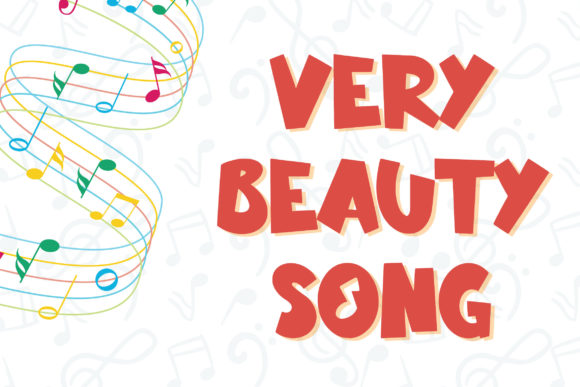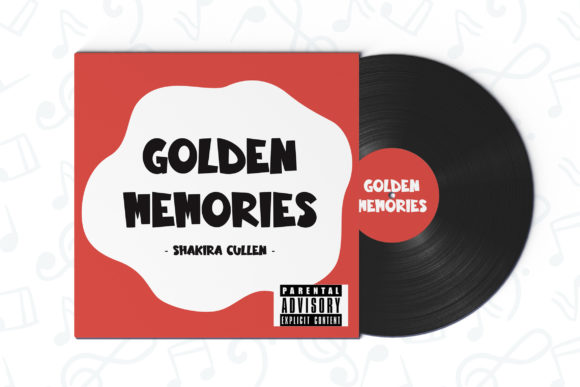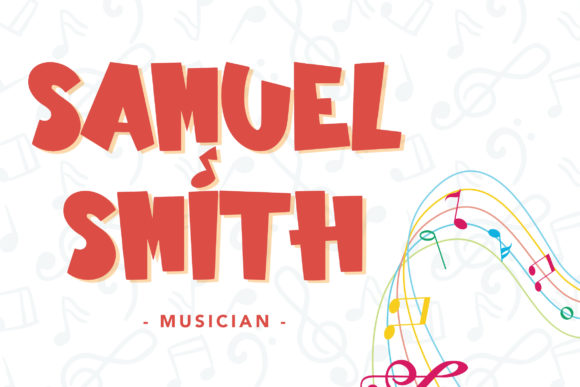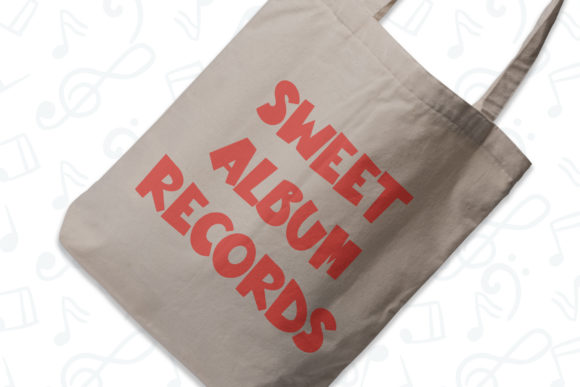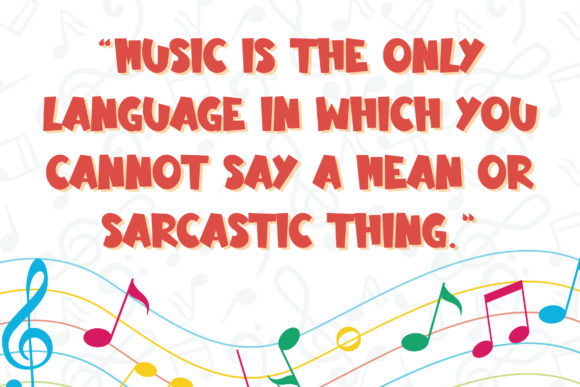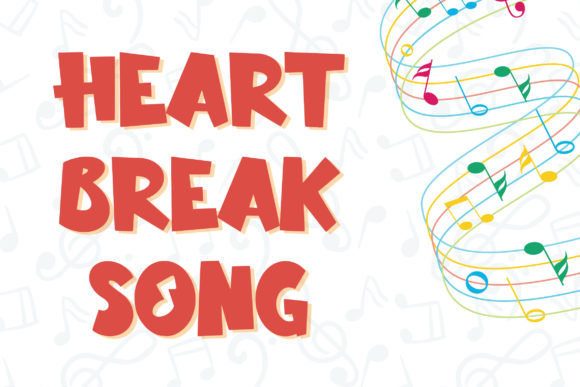
Introduction to On Melody Font
There’s something magical about stumbling upon the perfect font for a creative project. It’s like discovering a hidden treasure that elevates your design from ordinary to extraordinary. For designers, finding that special font can be a game-changer, making all the difference in bringing a concept to life. And that’s exactly what happens when you come across the On Melody Font – a delightful, handwritten font that’s perfect for adding a personal touch to your work.
With its unique, hand-crafted characters and PUA encoding, the On Melody Font offers endless possibilities for creative expression. Whether you’re designing a logo, creating a wedding invitation, or developing a product label, this font is sure to bring a touch of warmth and personality to your project.
Key Features of On Melody Font
- High-quality, professional font perfect for creative projects, with a transparent background that allows for seamless integration with any design.
- Unique, elegant design that adds a touch of sophistication to any creative project, making it a valuable design resource.
- Easy to use, with a clear and intuitive design that makes it perfect for designers of all skill levels.
Honest Review: On Melody Font
As a designer, I’m always on the lookout for high-quality design resources to elevate my creative projects. Recently, I had the chance to try out the On Melody Font, and I must say it’s been a game-changer.
Here are some things that work well: ✨
- Unique and elegant design style that’s perfect for creating a sophisticated look
- High-quality font that’s clear and legible, even at smaller sizes
- Works well with a transparent background, allowing for a seamless integration with other design elements
However, there are a few limitations: ⚠️
- Limited character set, which may be a concern for designers who need to use the font for extended periods
- No bold or italic weights available, which can limit the font’s versatility
Overall, I’m really impressed with the On Melody Font. Its unique design style and high-quality feel make it a great addition to any designer’s toolkit. With a few minor limitations, I’d highly recommend this font to anyone looking to elevate their creative projects.
Tips for Getting the Most Out of On Melody Font
Use On Melody Font with a transparent background for a high-quality design. This font is perfect for creative projects, such as invitations, posters, or social media graphics. You can also use it as a free download for your design resource library.
On Melody Font is commonly used for: wedding invitations, birthday party decorations, social media graphics, and promotional materials. It’s a great choice for designers who want a unique and creative font for their projects.
Does the On Melody Font support transparent backgrounds?
Yes, the On Melody Font supports transparent backgrounds, making it perfect for designs that require a subtle and elegant look. With its transparent background, you can easily combine the font with other design elements, such as images or gradients, to create a unique and visually appealing design.